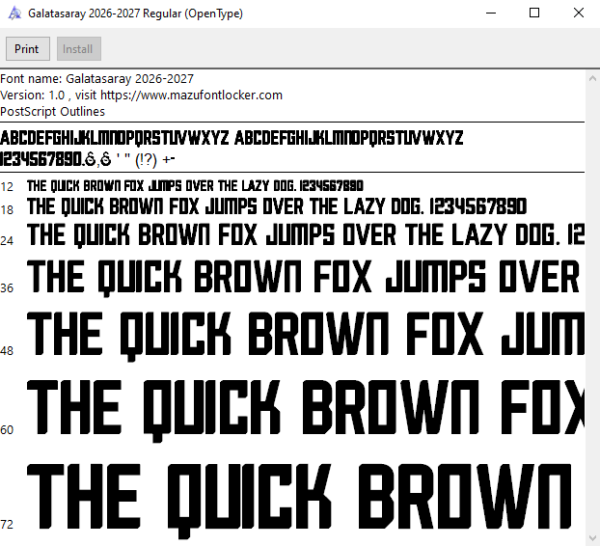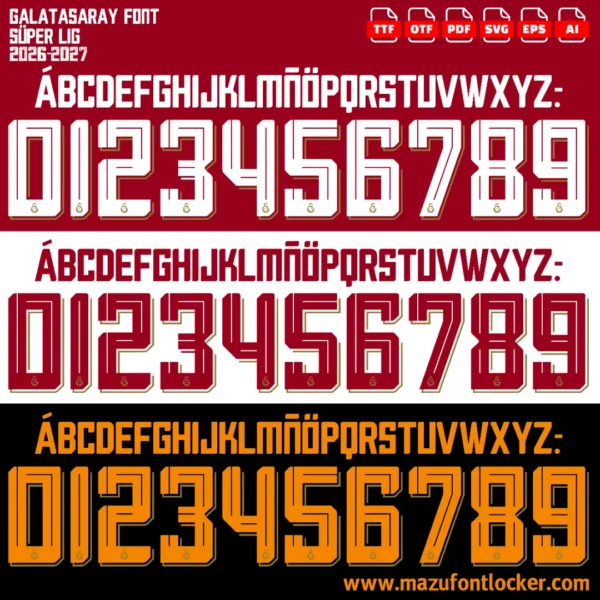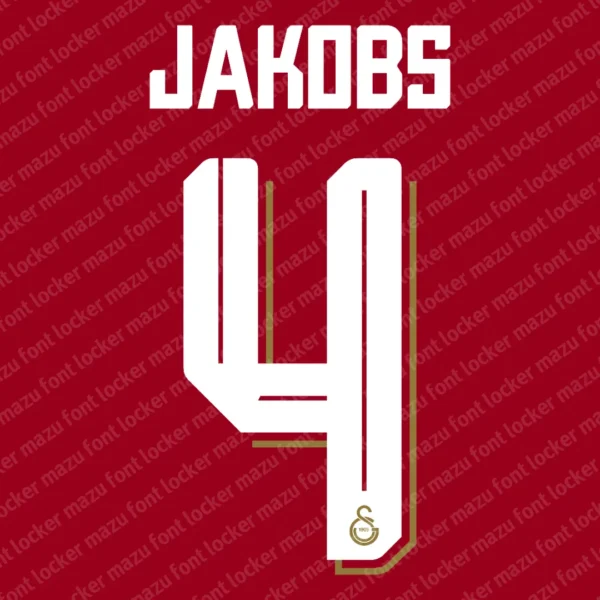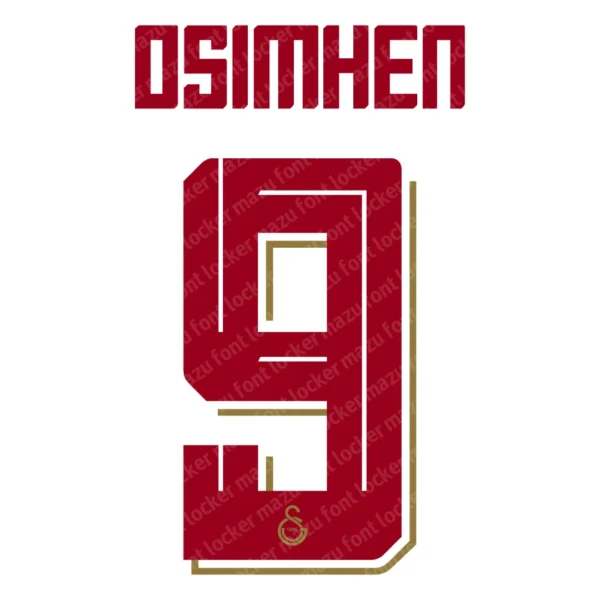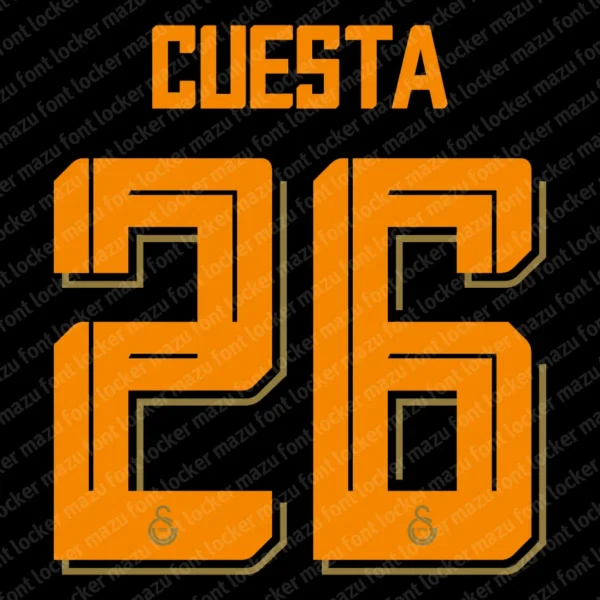
Galatasaray 2026-2027 Font Vector – Stunning Cimbom Champions Glory Masterpiece
This premium font captures the fierce, champion-forged, lion-hearted match lettering that embodies the unstoppable Galatasaray spirit — delivering authentic Istanbul passion, explosive Rams Park energy, unwavering resilience, tactical brilliance, legendary warrior mentality, and the thunderous yellow-and-red roar that strikes fear into every opponent across Europe.
Galatasaray 2026-2027 Font Vector – Bold Süper Lig Custom Typeface Revolution
The Galatasaray 2026-2027 Font Vector is a premium typeface that replicates the newly introduced official match lettering used by Galatasaray during the 2026-2027 season. This high-quality vector font kit reflects a major visual shift for the club, moving away from the previously used generic Arial style and introducing a fully custom-designed typography tailored to the identity of the Turkish giants. :contentReference[oaicite:0]{index=0}
Created for professional designers, football enthusiasts, and passionate Galatasaray supporters, the Galatasaray 2026-2027 Font Vector delivers an authentic match-ready appearance for jersey mockups, football merchandise, social media content, posters, and fan artwork. The new design aligns with the club’s modern branding direction under Puma while preserving the iconic red-and-yellow legacy.
Why Choose Galatasaray 2026-2027 Font Vector
This font stands out due to its fully custom-built structure and modern angular aesthetic. Each character has been carefully designed to match the official nameset used on Galatasaray’s 2026-2027 kits, marking the end of the league-wide Arial requirement and introducing a unique club identity on the pitch. :contentReference[oaicite:1]{index=1}
Whether you’re building realistic kit concepts or creating bold football graphics, the Galatasaray 2026-2027 Font Vector delivers a sharp, professional finish that feels modern, aggressive, and unmistakably Galatasaray.
The lettering features a modern angular structure with strong geometric edges and improved spacing for clarity on both domestic and European kits. The design emphasizes speed, strength, and identity—matching the intensity of Galatasaray’s playing style and fan culture.
The numerals are bold and slightly compact, designed for maximum visibility on the back of shirts. The updated forms replace the previously standardised typography, giving Galatasaray a distinctive and instantly recognisable visual identity.
Galatasaray 2026-2027 Season
The 2026-2027 season marks a new visual and branding era for Galatasaray, with the club unveiling updated Puma-designed kits featuring refined “parçalı” styling and modern colour tones. :contentReference[oaicite:2]{index=2} The introduction of a custom font further enhances this identity shift, strengthening the club’s individuality in both the Süper Lig and European competitions.
With strong fan expectations and a refreshed aesthetic direction, Galatasaray continues to evolve as one of Turkey’s most iconic football institutions. The new typography is part of a broader effort to modernise the club’s visual presence while maintaining its deep-rooted traditions and passionate supporter culture. :contentReference[oaicite:3]{index=3}
The Galatasaray 2026-2027 Font Vector is an independently designed typeface package inspired by the official shirt lettering used during the 2026-2027 season. It is intended for creative projects, fan designs, jersey mockups, and football-inspired artwork.